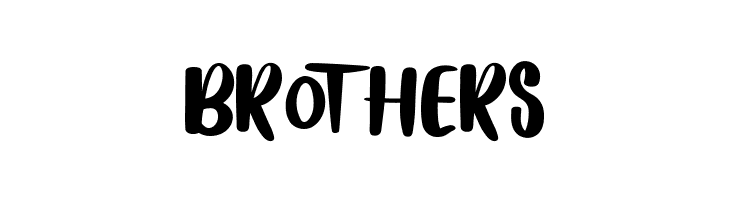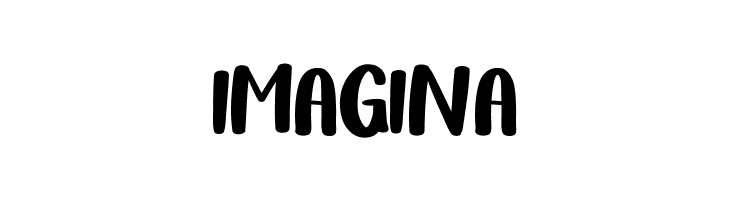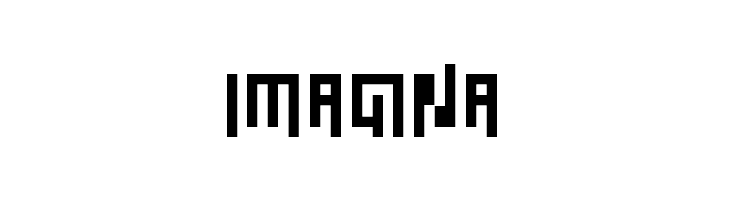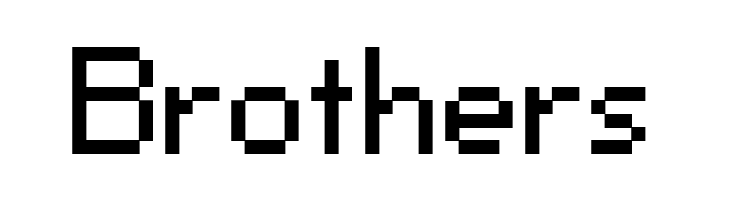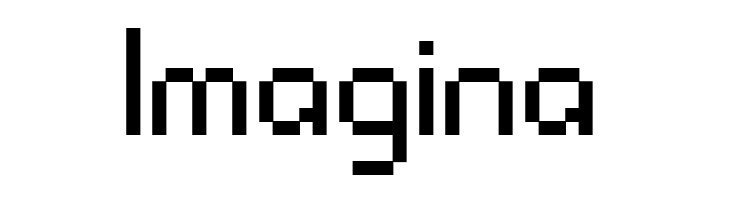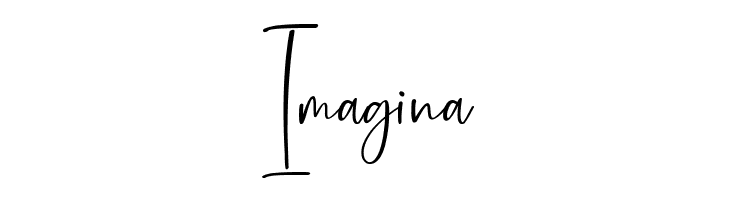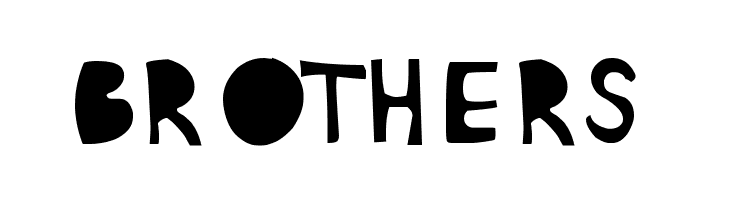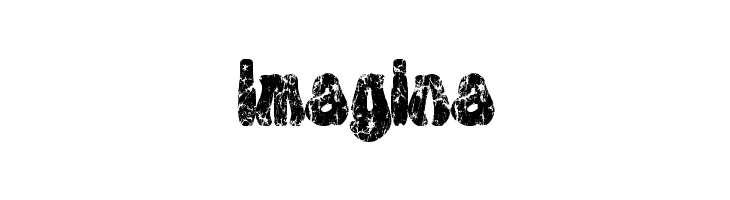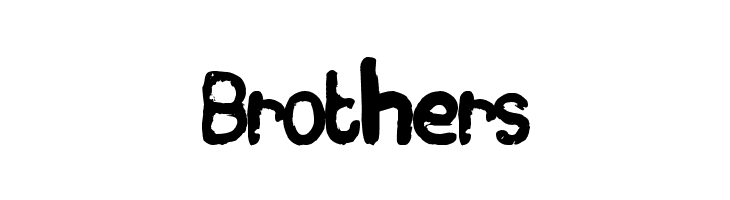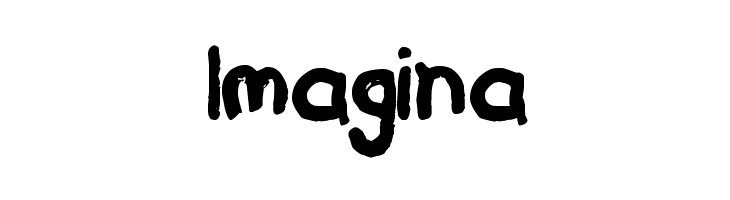
• Pip Boy Weapons Dingbats
• Pipe Line
• Pirate Ship
A bold, angular font with a pirate-themed, decorative style.
• PirateDisco
A bold, italicized font with a halftone texture, offering a dynamic and retro-modern look.
• Pirmokas
A bold, energetic handwritten font with expressive strokes and a lively appearance.
• Pirmokasdemo
A bold, energetic handwritten font with fluid strokes.
• PistOl Sex Punk
A bold, eclectic display font with punk and retro influences.
• Piston Pressure
A bold, geometric font with a strong, modern industrial style.
• PitStop
A bold, three-dimensional font with a halftone pattern and shadow effect, ideal for decorative purposes.
• Pixel Berry 08/84 Ltd.Edition
• Pixel Case
• pixel dead
A bold, distressed font with a grunge, eroded appearance.
• pixel dead Italic
A bold, italicized, distressed font with a pixelated, grunge aesthetic.
• Pixel Siggy
• Pixel Twist
A bold, pixelated font ideal for retro digital designs.
• PixelBreack Bold
• PixelHour
A bold, pixelated decorative font with a digital retro style.
• Pixelic War
A bold, distressed, pixelated font with a grunge aesthetic.
• Pixelic War
A bold, pixelated font with a distressed, grunge texture.
• PIXO Reto
• Plane Crash
• Plantor
A bold, geometric font with sharp, angular characters.
• Plaque-Man-Open
• Plastic
A bold, geometric font with a futuristic and tech-inspired design.
• Plastic Beach
• Plasticine